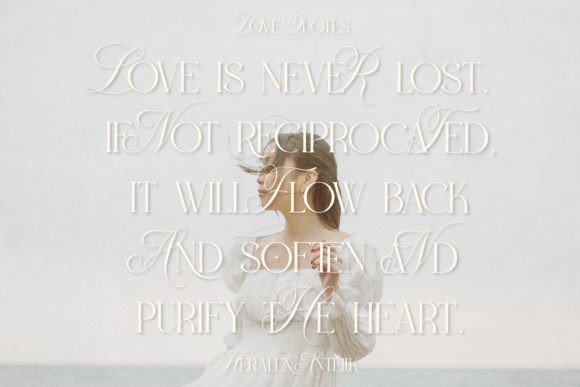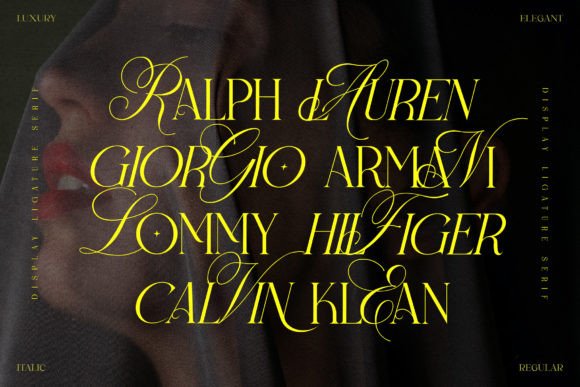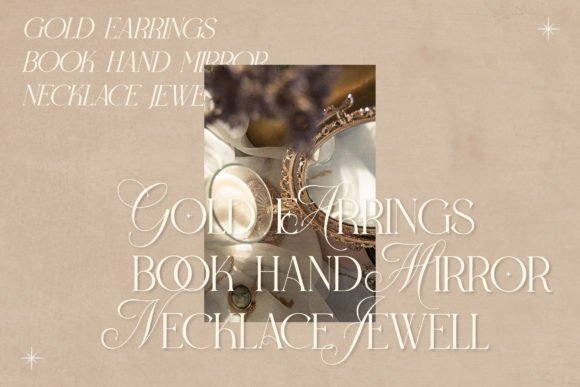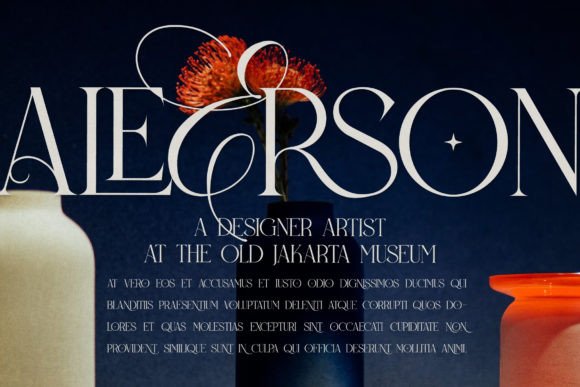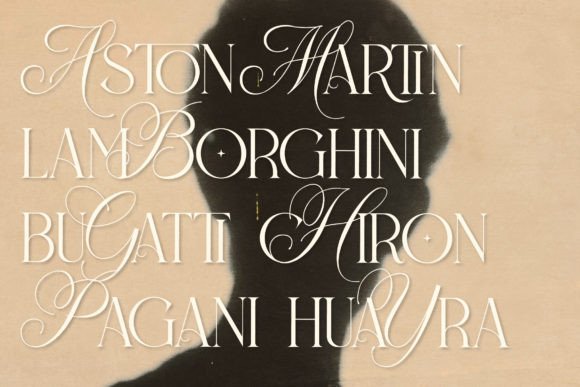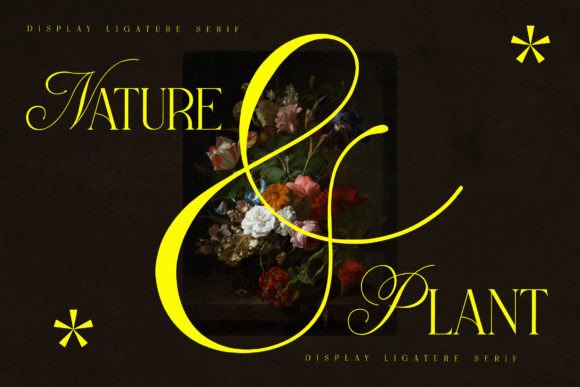
Introduction to Heralen Antelik Font Font
Fonts play a crucial role in design, and the Heralen Antelik Font font is a typeface that brings both character and versatility to any project. Whether you’re working on a branding project, a website, or a print design, the Heralen Antelik Font font offers a unique style that can elevate your work.
| 📌 Font Name | Heralen Antelik Font |
| 👤 Author | Storytype Studio |
A serif modern and classic typeface that has its own unique style & modern look.
This typeface is perfect for an elegant & luxury logo, book or movie title design, fashion brand, magazine, clothes, lettering, quotes, and so much more .
Key Features of Heralen Antelik Font Font
Why Choose Heralen Antelik Font Font?
The Heralen Antelik Font font is more than just a typeface – it’s a design tool that helps you communicate your message with style and clarity. Its unique character set and versatile design make it suitable for a wide range of applications, from elegant invitations to bold headlines.
With its carefully crafted letterforms and balanced proportions, the Heralen Antelik Font font ensures readability and visual appeal across all mediums.
What makes Heralen Antelik Font font special?
The Heralen Antelik Font font stands out with its unique design, exceptional readability, and versatility across various design applications.